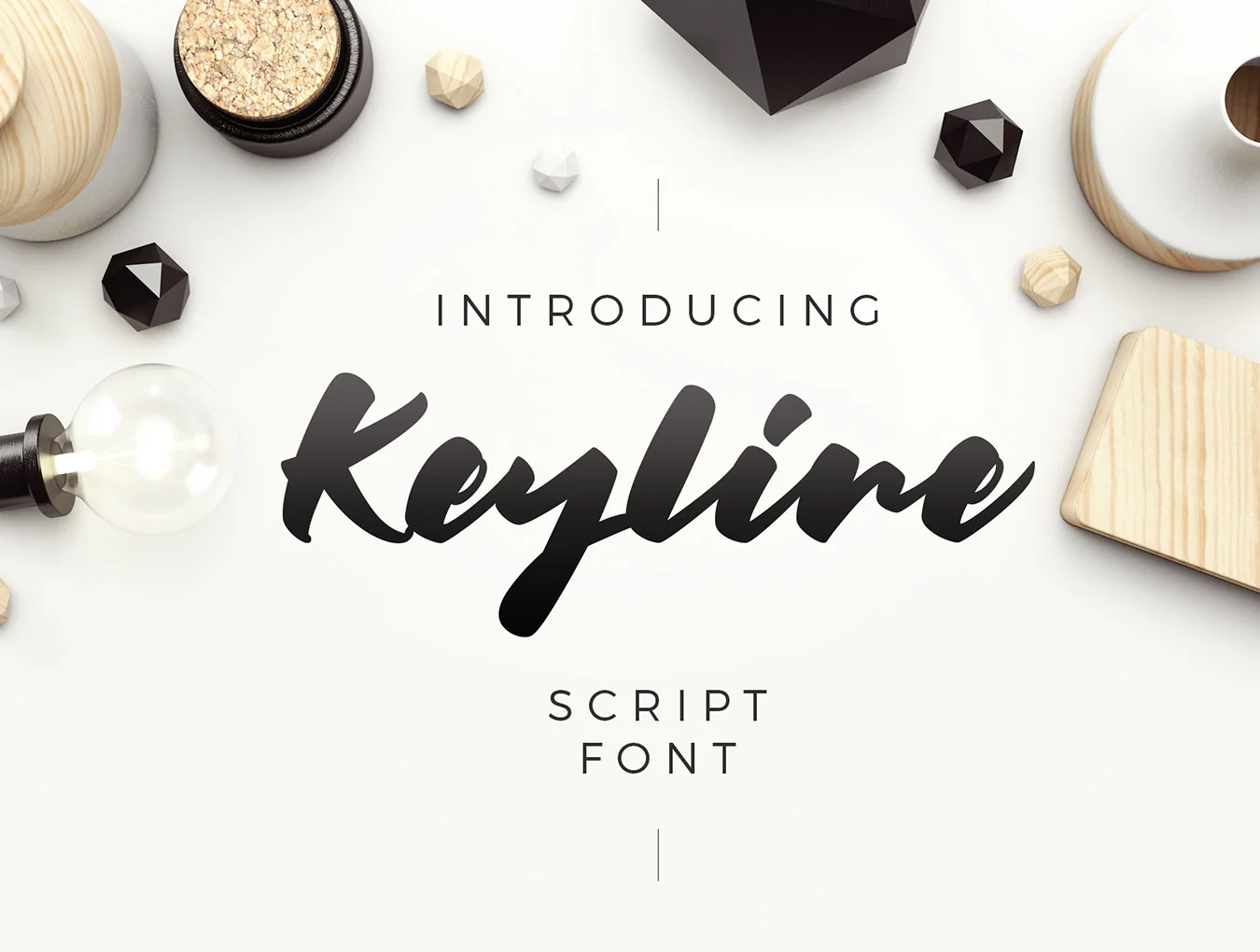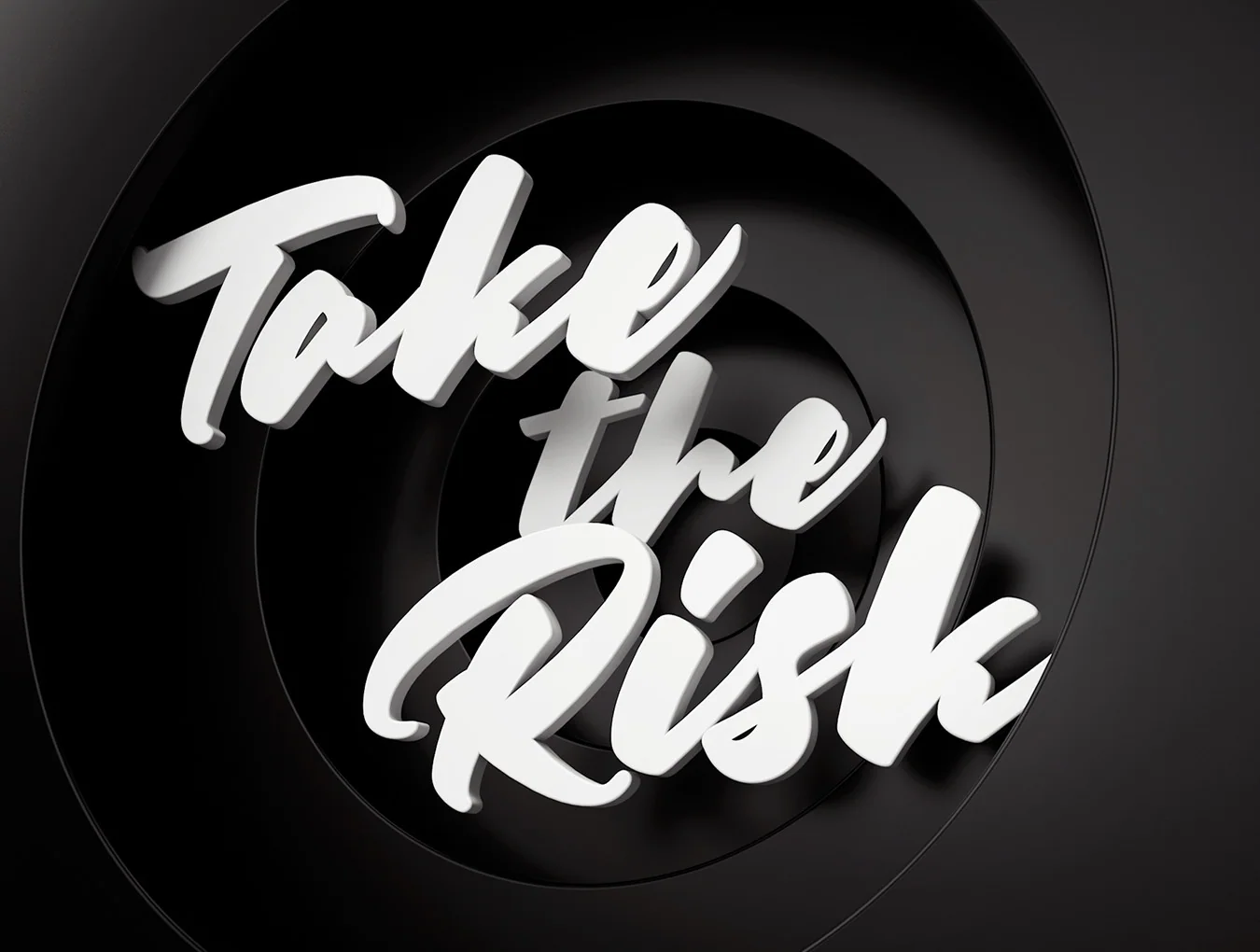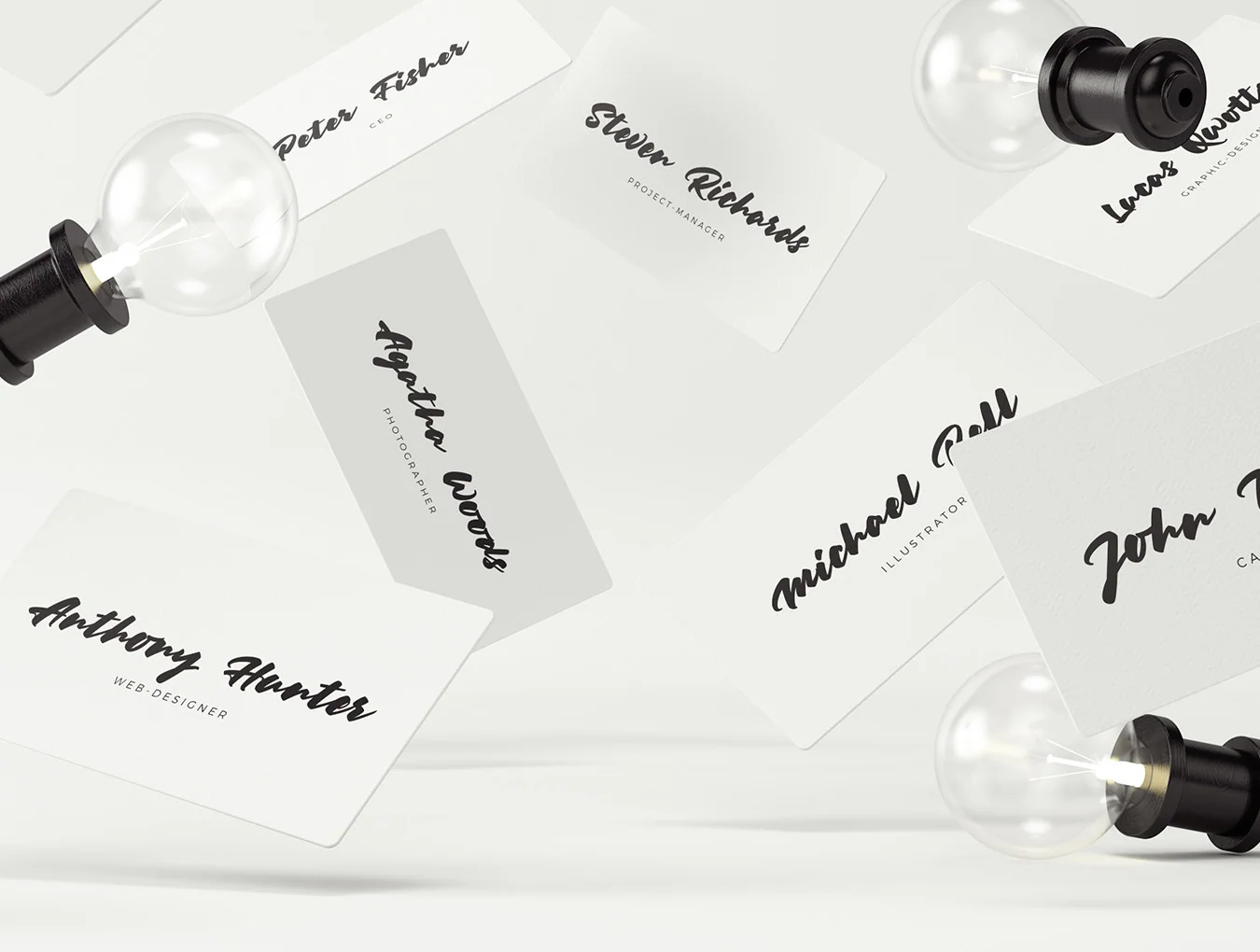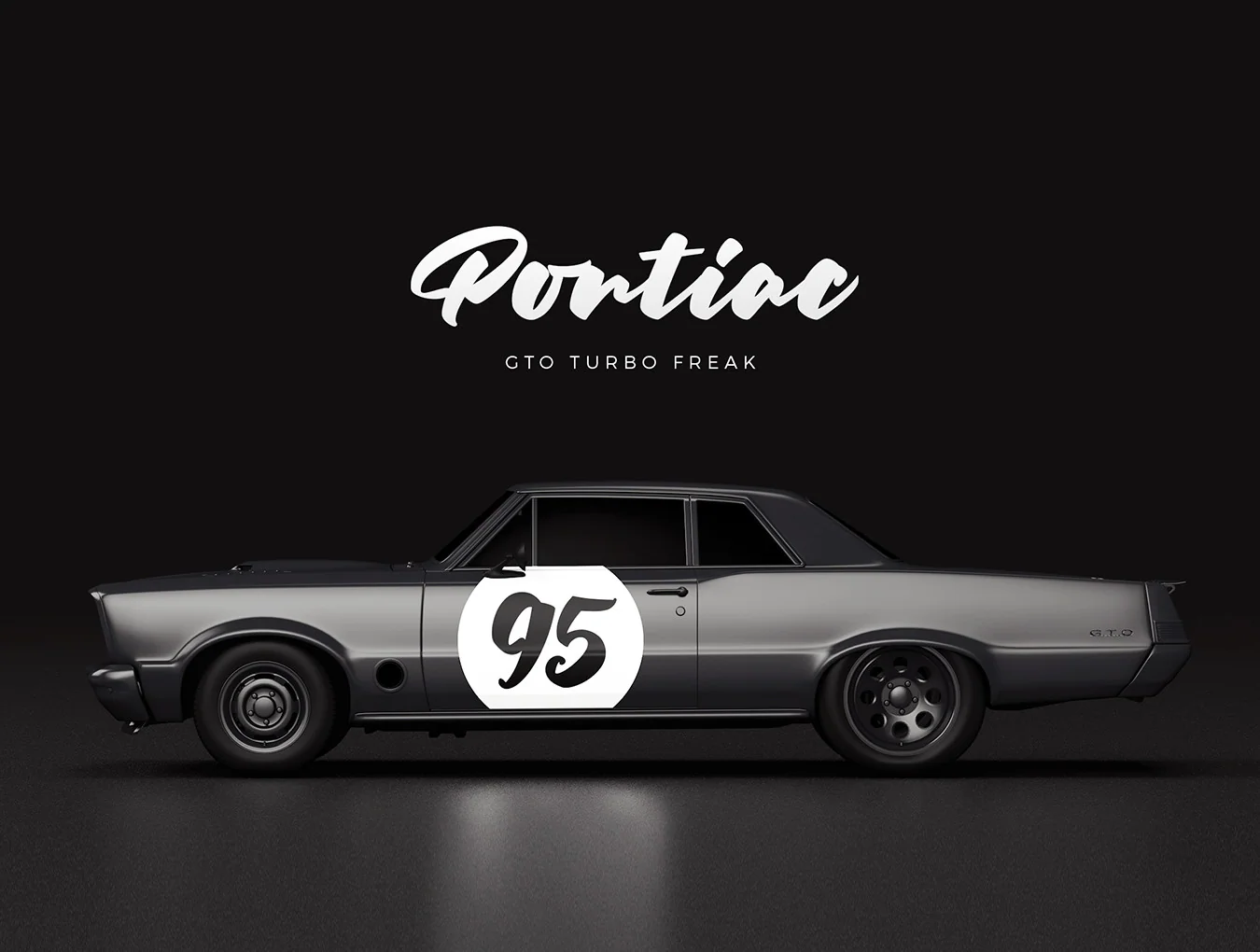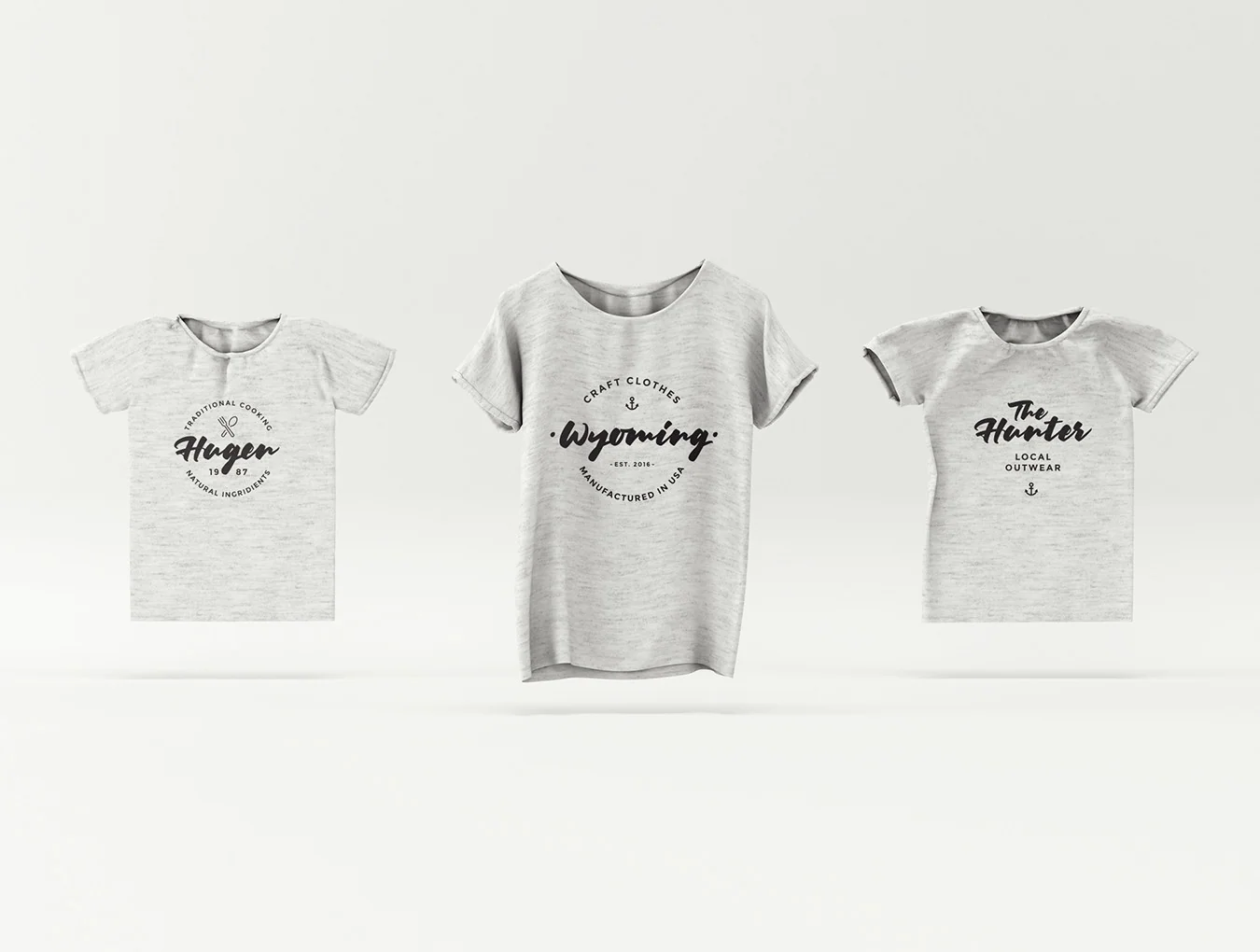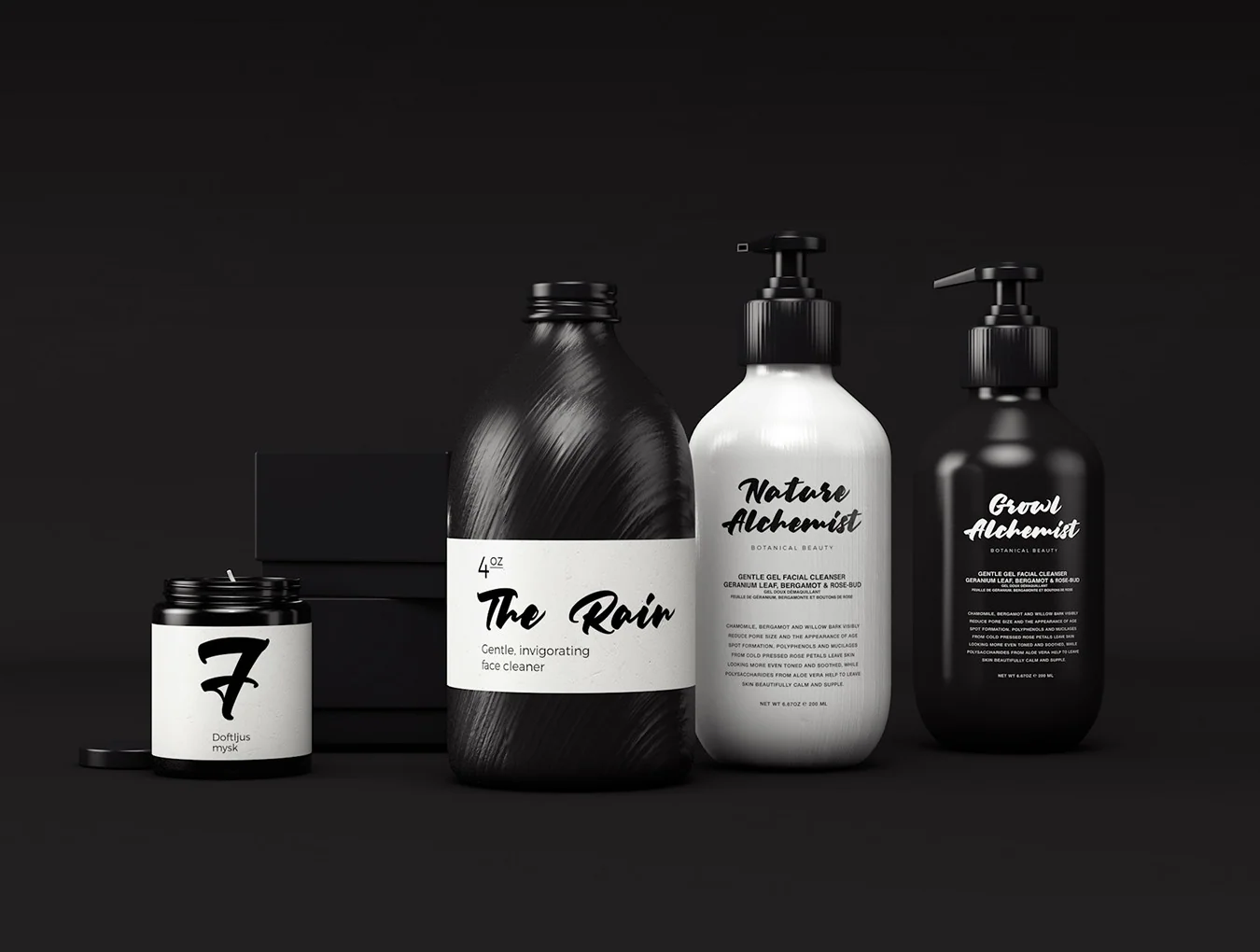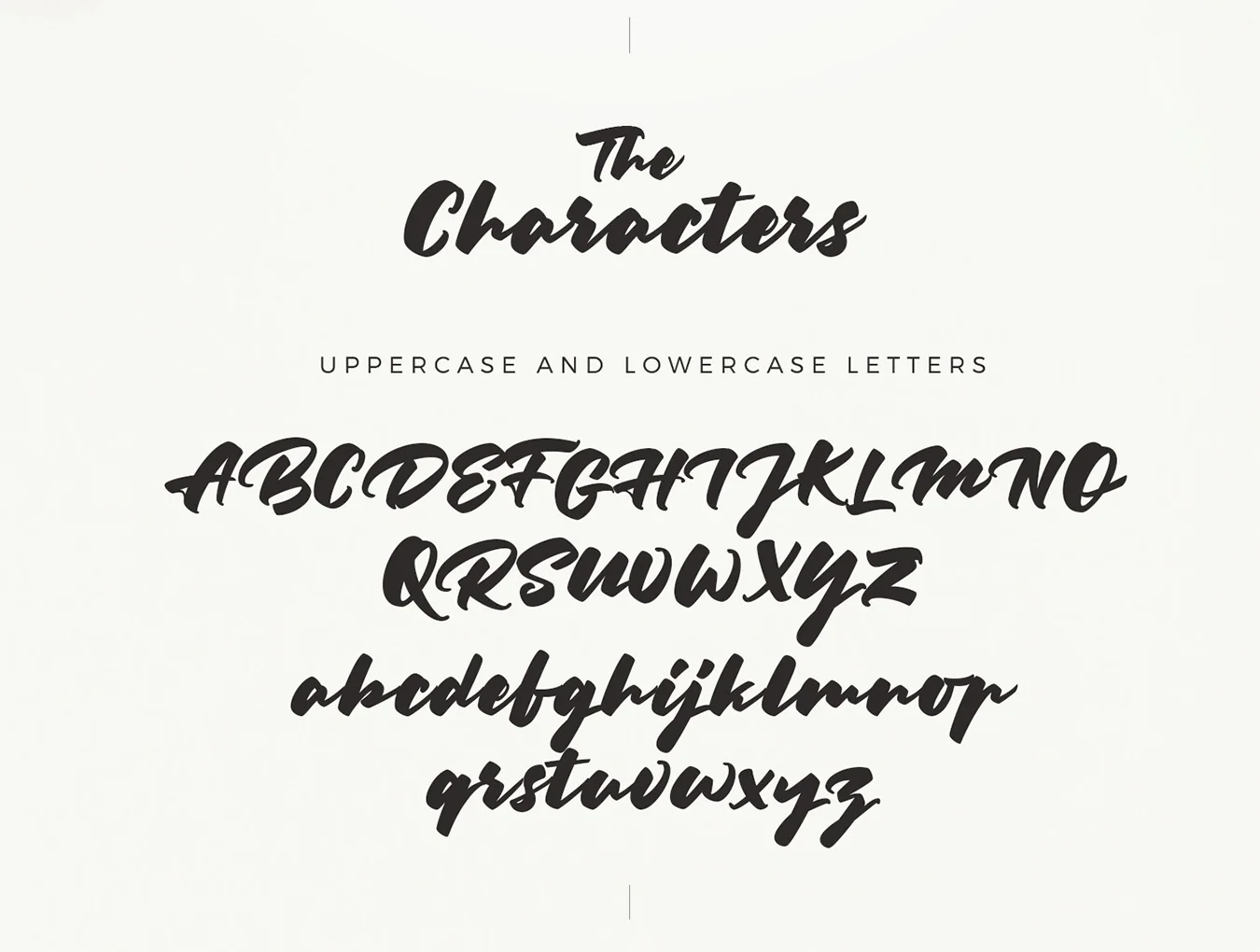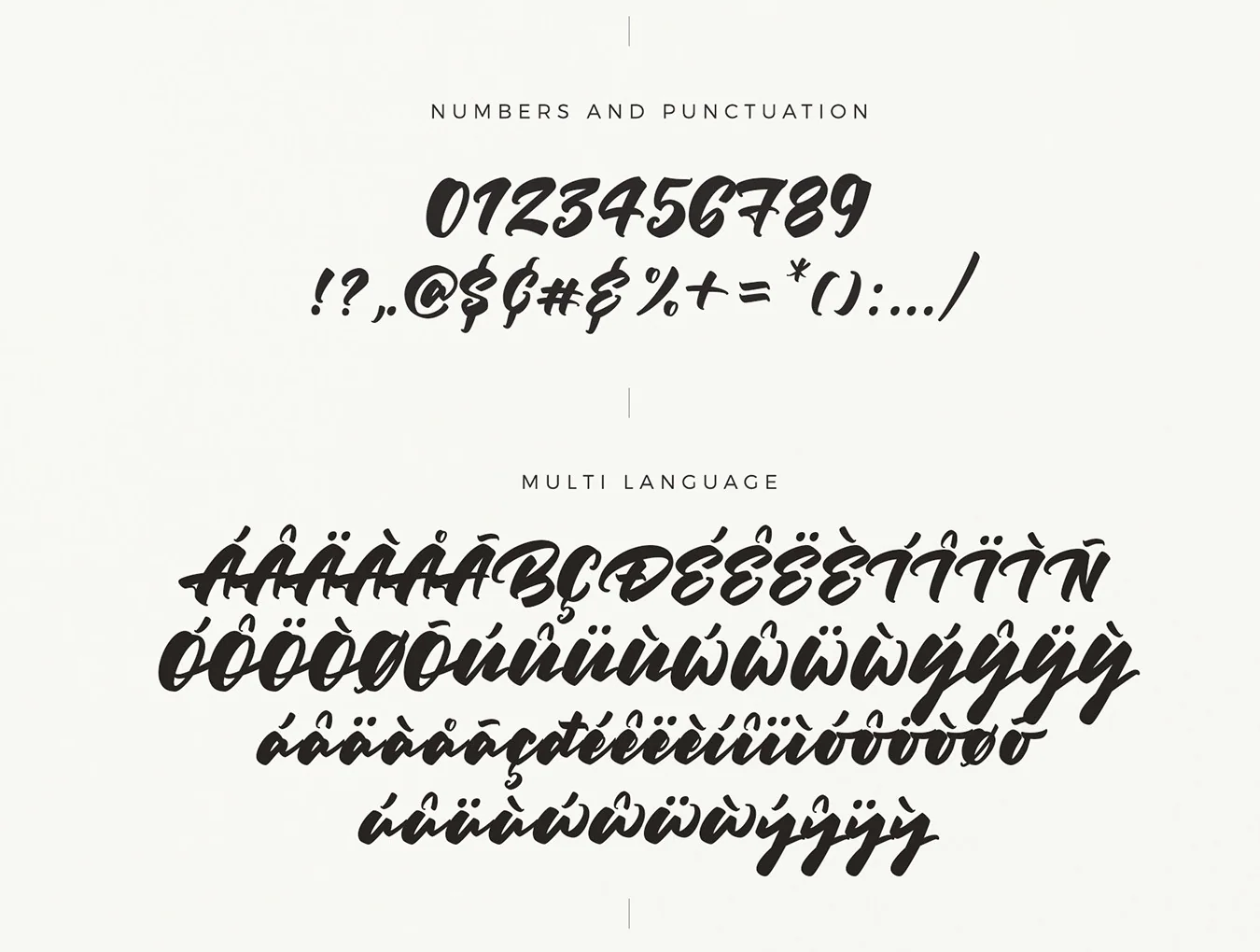
Keyline Script Font
Ideal script typeface for your brand identity
Capital and small letterforms
Keyline includes complete uppercase and lowercase letters, letting you shape text into genuine bespoke hand-lettered designs. The font also offers extensive glyph coverage, with numbers, punctuation, and multilingual characters.